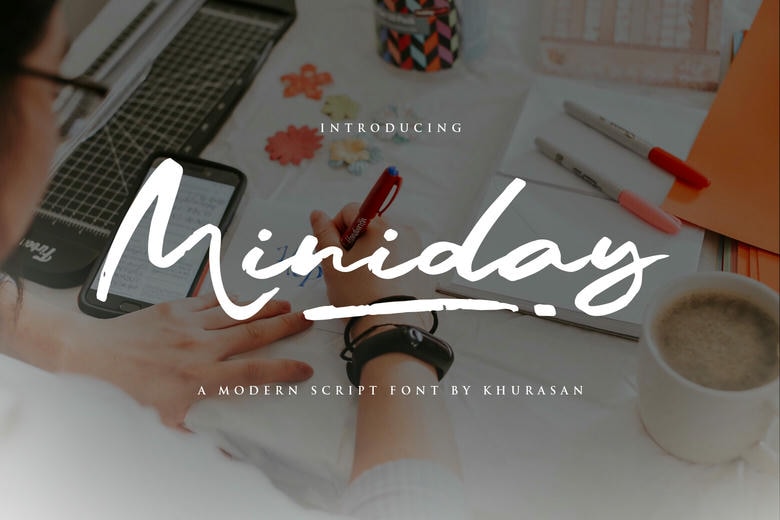
Miniday is a contemporary handwritten script font having a pure flowing style resembling a natural penmanship. Their sophisticated monoline lines and slightly tilted letterforms contribute to its casual but elegant appearance, which can be ideal to add a personal touch to any design.
Miniday is effective in a broad variety of creative tasks, such as branding, blog header, social media imagery, quotation, invitation, product packaging, and minimalist logos. This font is created to be all-purpose and easy to read, adding coziness and naturalness without being overly slick and modern.
Miniday Handwritten Script Font